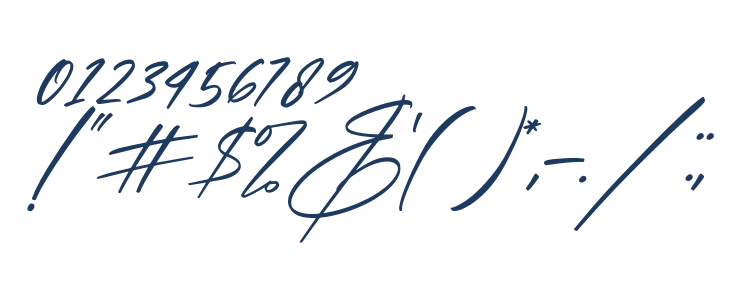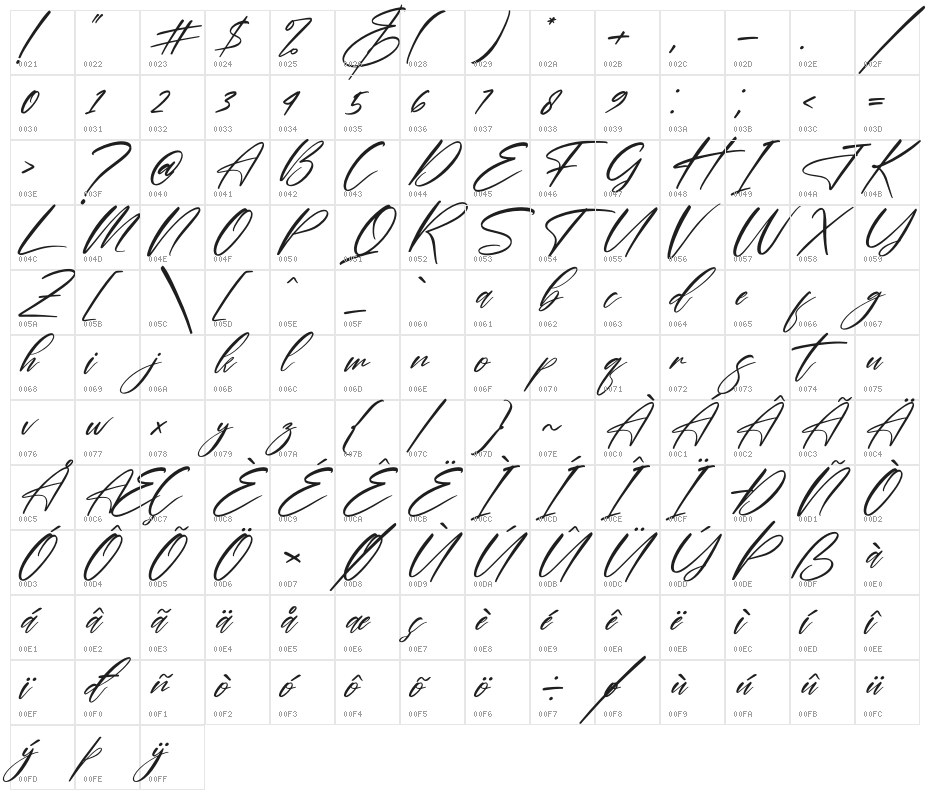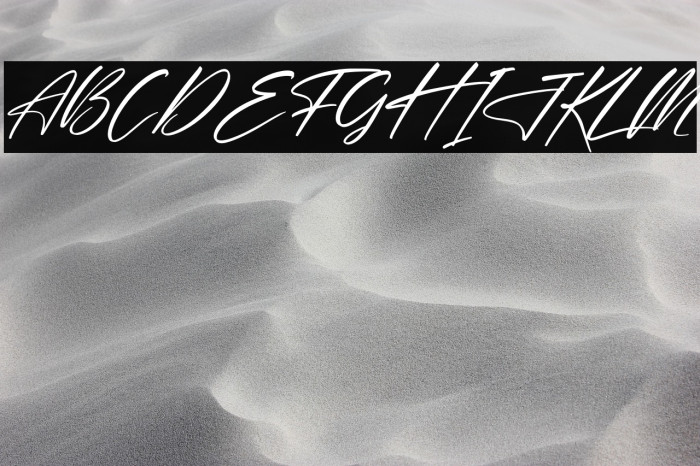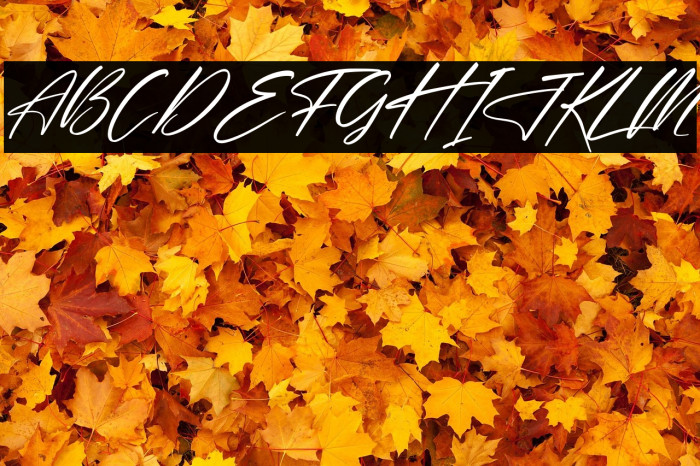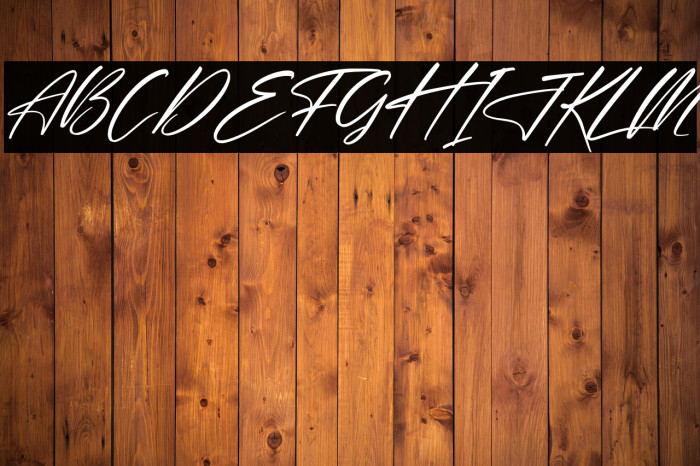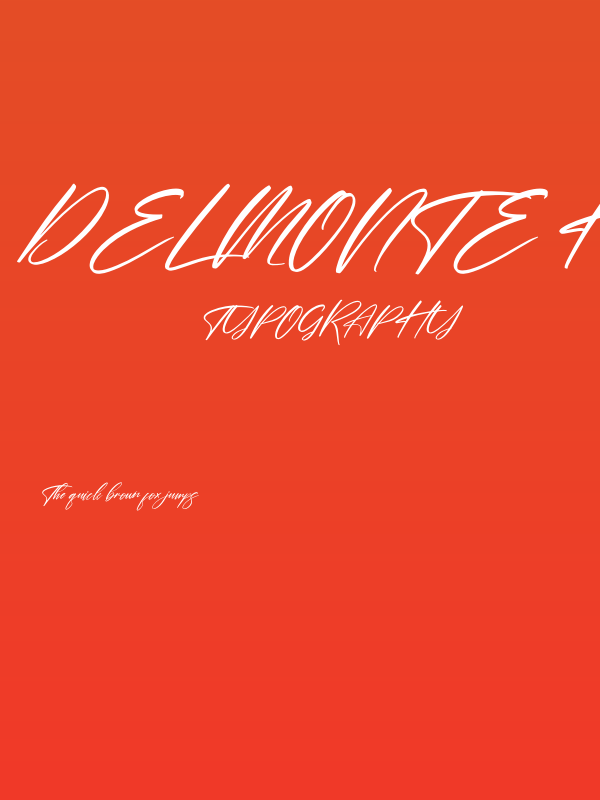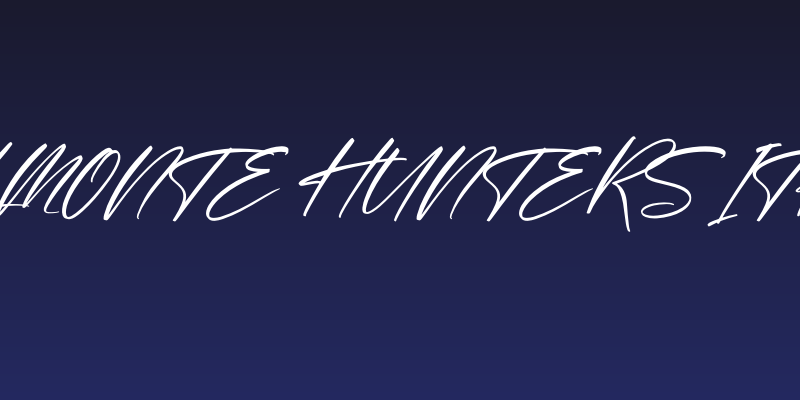
Delmonte Hunters Italic Font
Delmonte Hunters Italic Description
This font exudes a dynamic and elegant style with its fluid, cursive script. The letters are interconnected, creating a seamless flow that mimics natural handwriting. The strokes are smooth and slightly slanted, enhancing the italicized appearance. The uppercase letters are bold and prominent, while the lowercase letters maintain a graceful and consistent form. Numbers and special characters are designed to match the overall aesthetic, ensuring a cohesive look across all text. This font is ideal for projects that require a touch of sophistication and personal flair.
| Proposed Projects | Ideal for wedding invitations, personal branding, elegant logos, and artistic projects. |